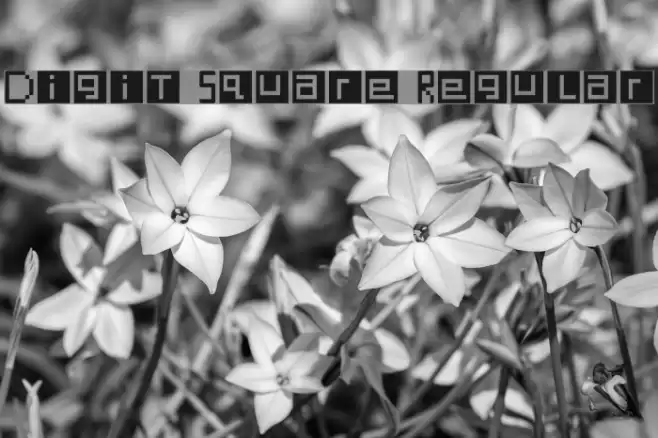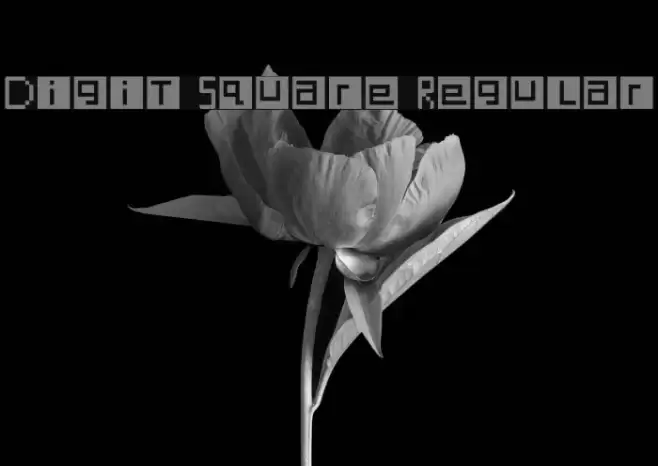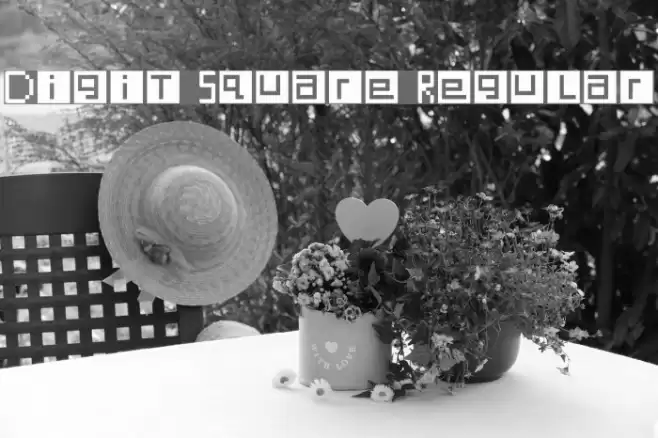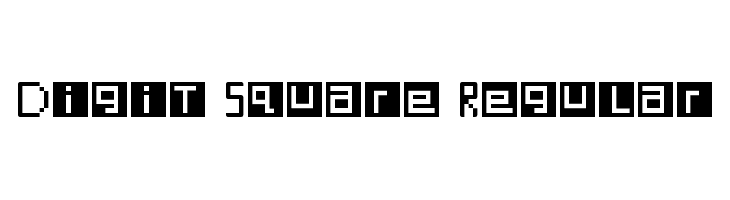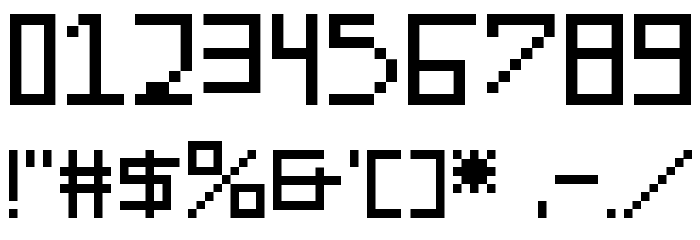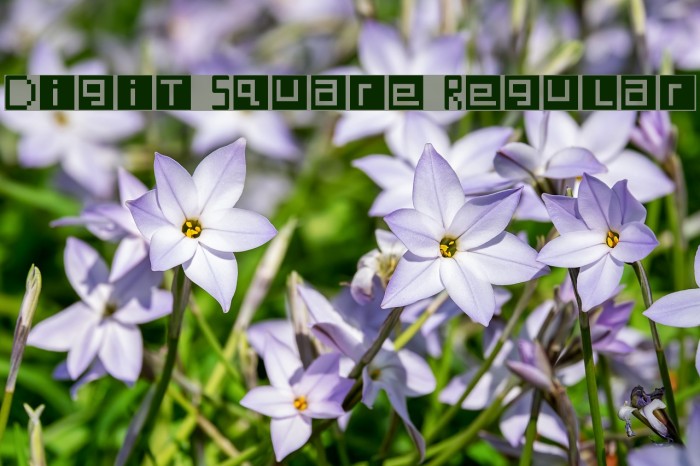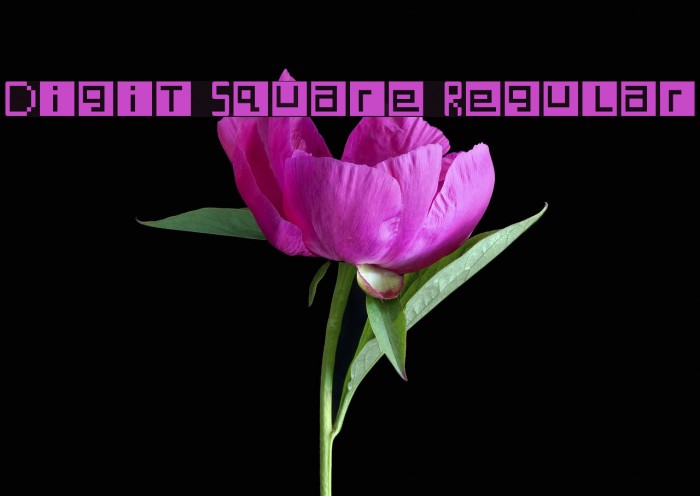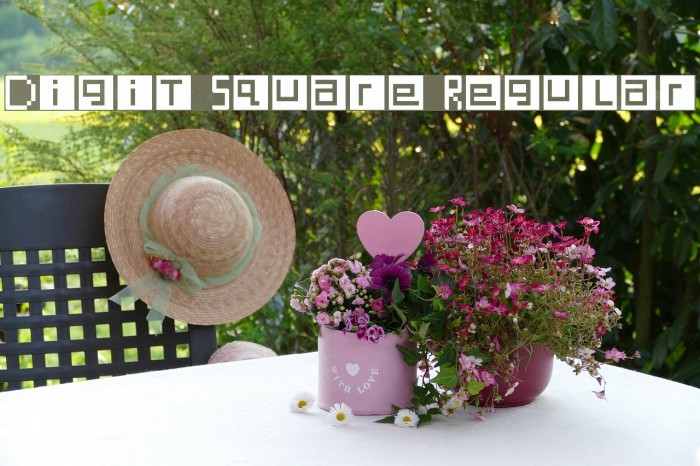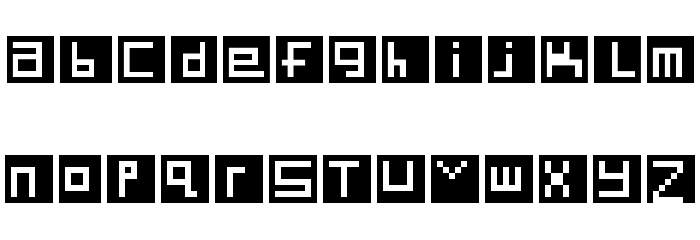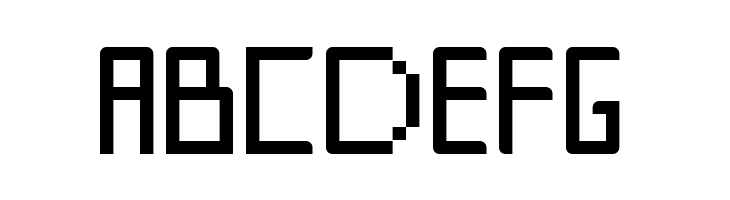
Digit Square Regular Font
Digit Square Regular Description
This font features a distinct, geometric design with a digital, pixelated appearance. Each character is constructed with a grid-like structure, giving it a modern, tech-inspired look. The uppercase and lowercase letters maintain a consistent height, emphasizing uniformity and precision. Numbers and special characters follow the same design principles, ensuring a cohesive visual style throughout. The font's blocky nature makes it highly legible and suitable for digital displays or retro-themed projects.
A geometric, pixelated font with a modern, tech-inspired design from Futuristic fonts.
- Proposed Projects: Ideal for digital displays, video game interfaces, tech branding, and retro-themed designs.